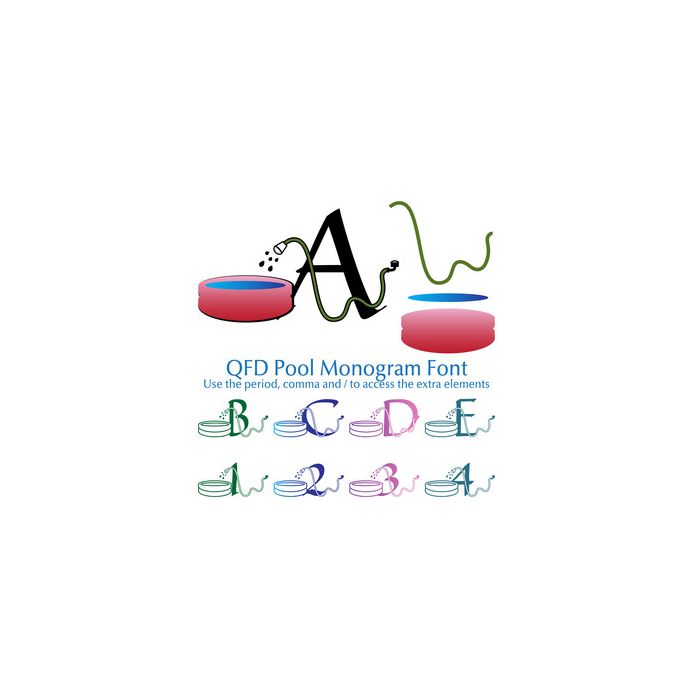
Here’s a perfect summertime font. Combine this fun font with the other QFD Monogram fonts! See our detailed monograms tutorial by clicking the Instructions button. Use the period, comma and / to access the extra elements.